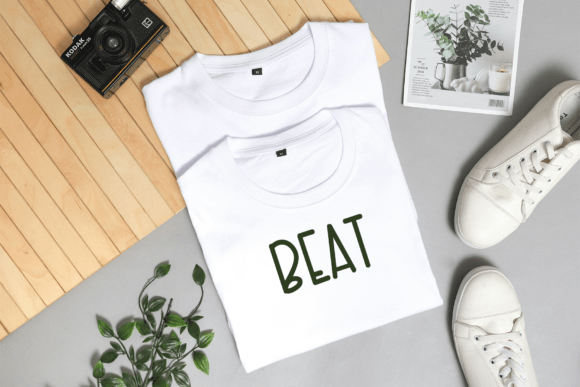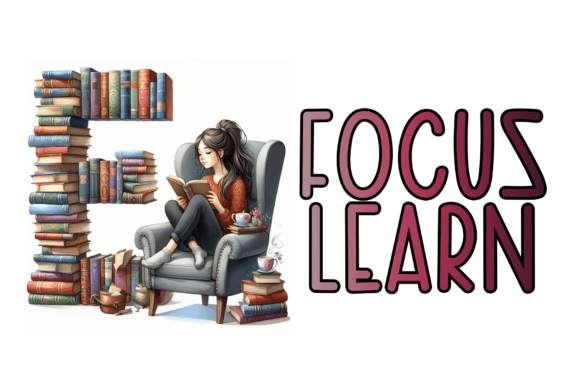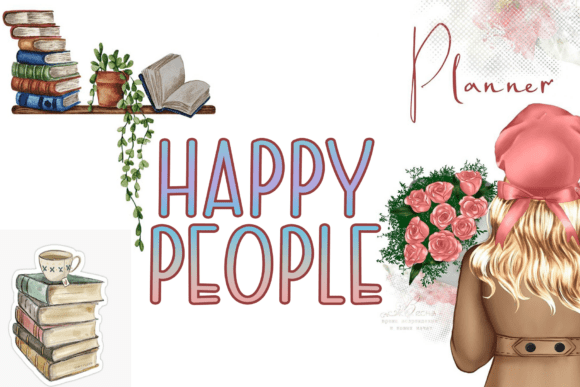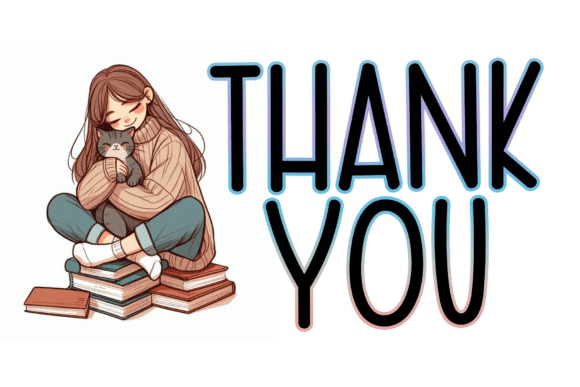
Adding a Personal Touch to Your Designs
Remember that moment when you stumbled upon the perfect font to elevate your design project? It’s like finding a needle in a haystack, but instead of a needle, it’s a font that speaks to your creative soul. For designers, the right font can be the difference between a good design and a great one. It’s a subtle yet powerful element that can evoke emotions, convey tone, and set the mood for your entire project.
Enter Bookmark Font, a charming and playful handwritten font that’s perfect for adding a personal and friendly touch to your designs. Its natural, hand-drawn style makes it an instant favorite among designers who crave a more organic and human feel. With Bookmark Font, you can create designs that feel approachable, relatable, and downright lovable. Whether you’re designing a logo, a brand identity, or a marketing campaign, Bookmark Font is a valuable addition to your design toolkit.
Bookmark Font Key Features
- Font Family: Bookmark Font comes in 3 font families: Regular, Bold, and Italic, each with 6 font styles to choose from.
- Character Set: Supports a wide range of characters, including Latin, Cyrillic, Greek, and more, making it suitable for multilingual designs.
- Unique Characteristics: Bookmark Font features a unique, modern design with subtle flair and ornate details, perfect for adding a touch of elegance to designs.
Bookmark Font Review
Overall, I think the Bookmark Font is a solid choice for anyone looking for a clean and simple font. ✨ I particularly like the way it handles titles and headings, the font looks crisp and clear. The font also handles body text well, it’s easy to read even at smaller sizes. ✨
One thing that really stood out to me was the range of weights and styles available. The font comes in a variety of weights, from light to bold, and also has a range of styles including italic and condensed. This makes it super versatile and easy to use in a variety of design contexts.
- Clean and simple design
- Good for titles and headings
- Handles body text well
- Range of weights and styles available
- Can be a bit too simple for some design projects
- May not be the best choice for projects that require a lot of visual interest
- Some users may find the font too monotonous
- ⚠️ Not as suitable for display fonts
Overall, I think the Bookmark Font is a great choice for anyone looking for a clean and simple font. While it may not be the best choice for every design project, it’s definitely worth considering for projects that require a clean and easy-to-read font.
Bookmark Font is ideal for creating eye-catching headings, titles, and labels. It’s also great for adding a touch of elegance to your designs. Some common use cases include:
- Creating a bold and modern title for a brochure or flyer.
- Adding a decorative touch to a presentation or slideshow.
- Creating a unique and eye-catching label for a product or packaging.
Alternatives to Bookmark Font
Montserrat is a modern sans-serif font designed for digital media. It is highly legible even at small font sizes and is ideal for use in headings, titles, and body text. Montserrat is a popular alternative to Bookmark Font for designers who need a clean and modern look. Compared to Bookmark Font, Montserrat has a more geometric and industrial feel, making it suitable for digital products and websites.